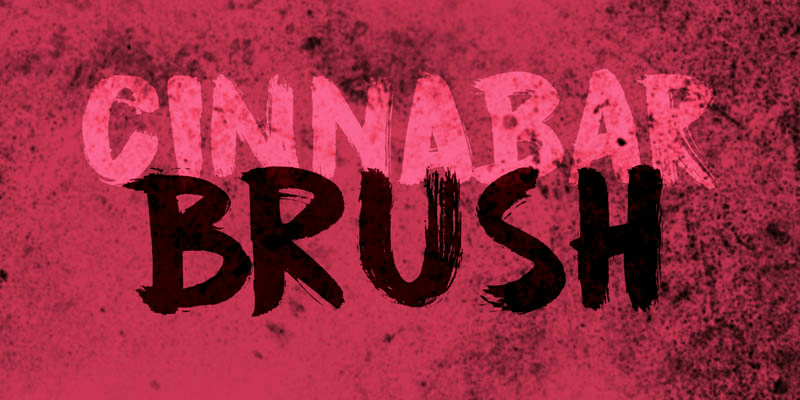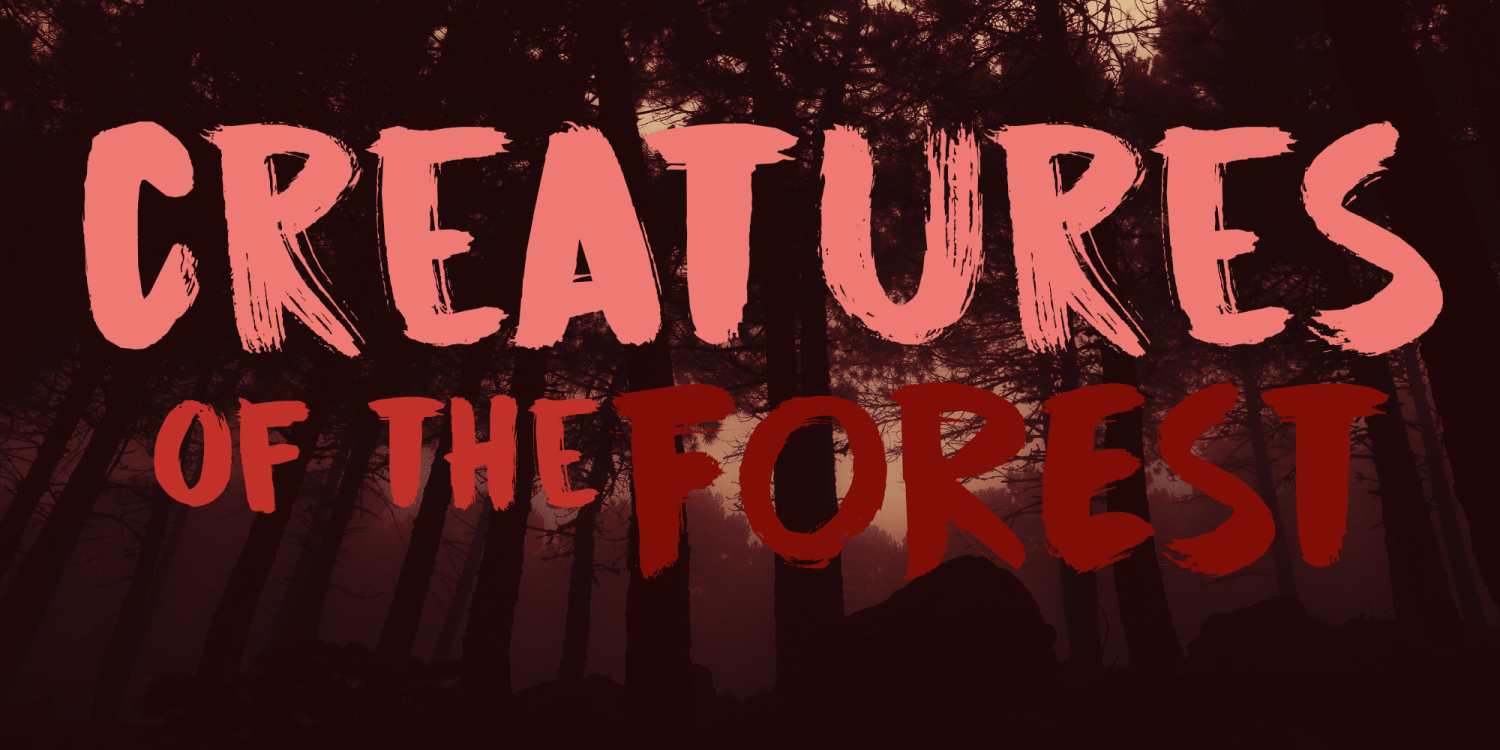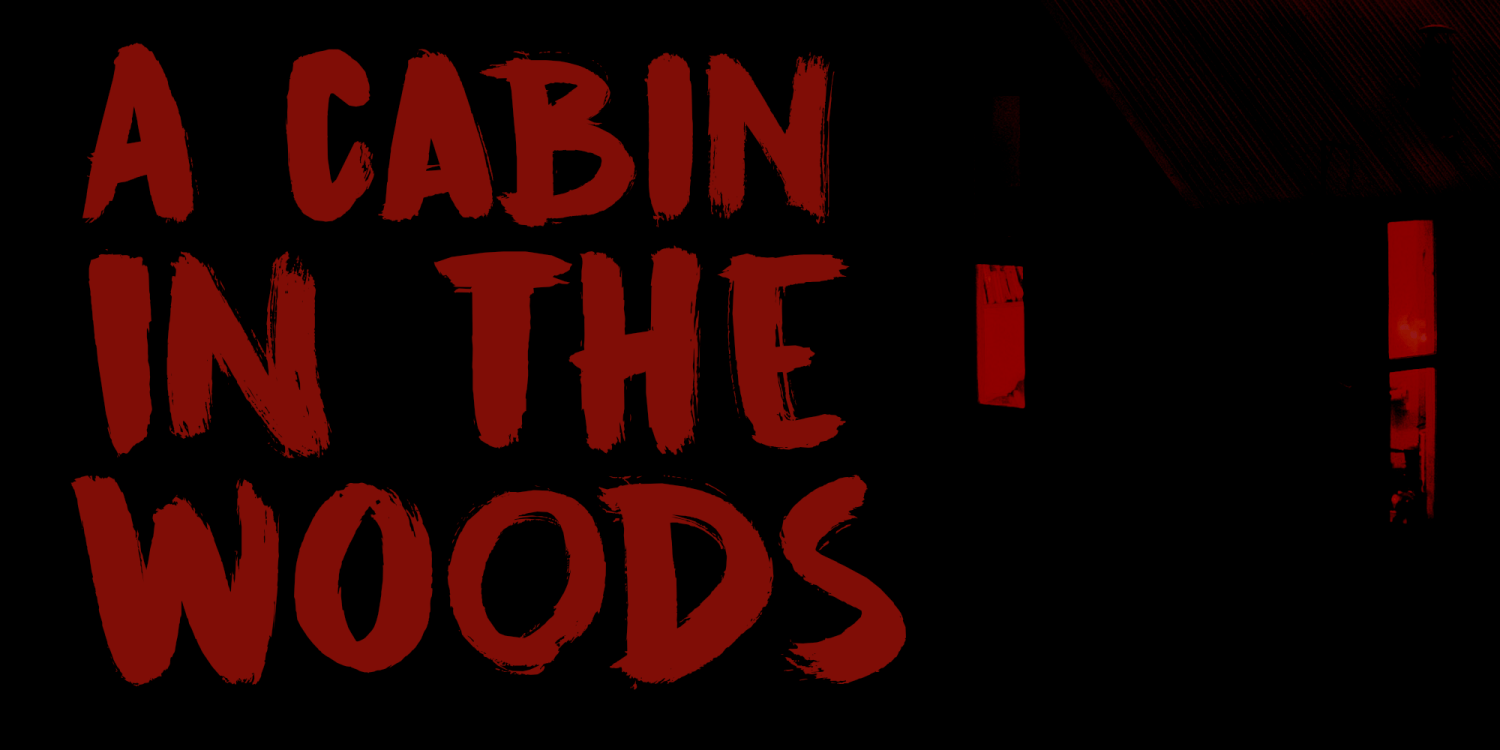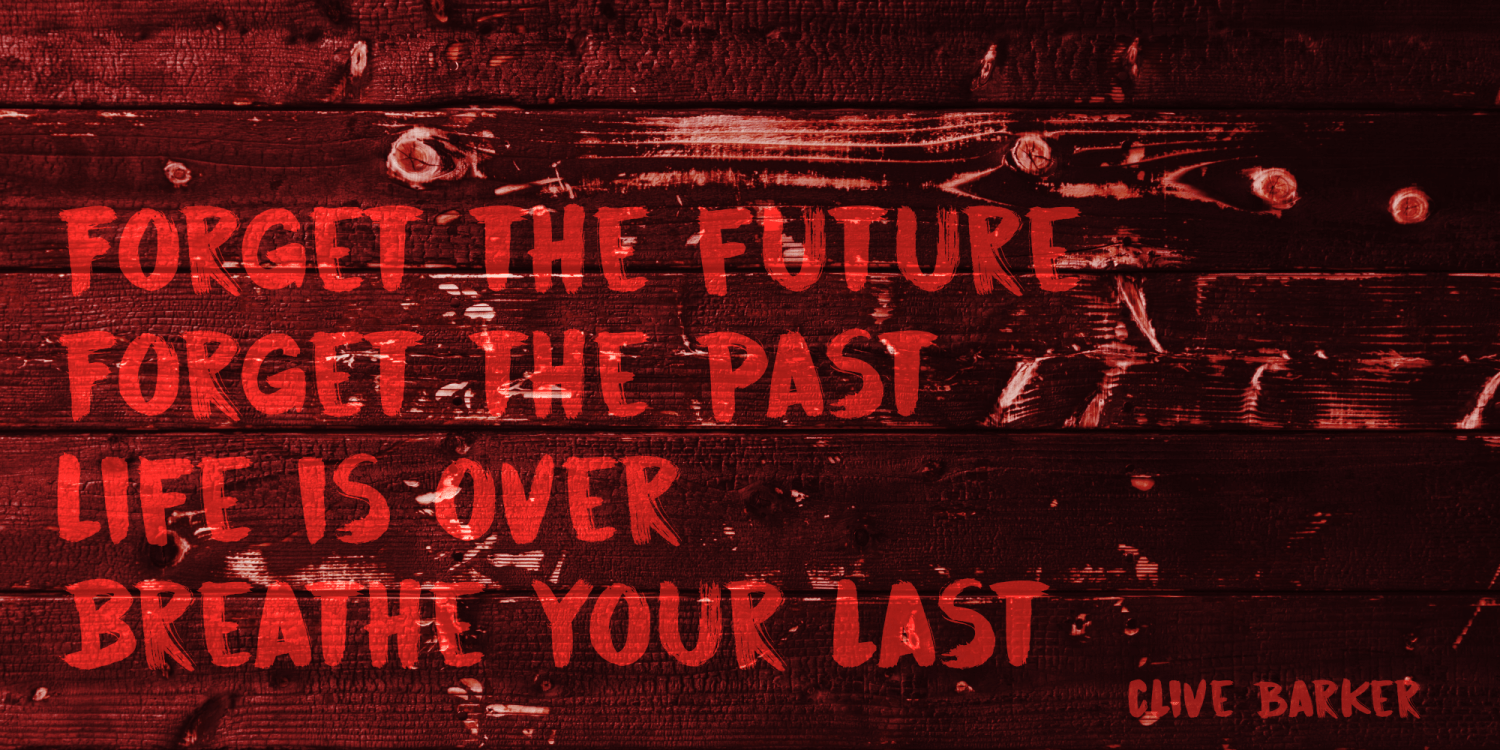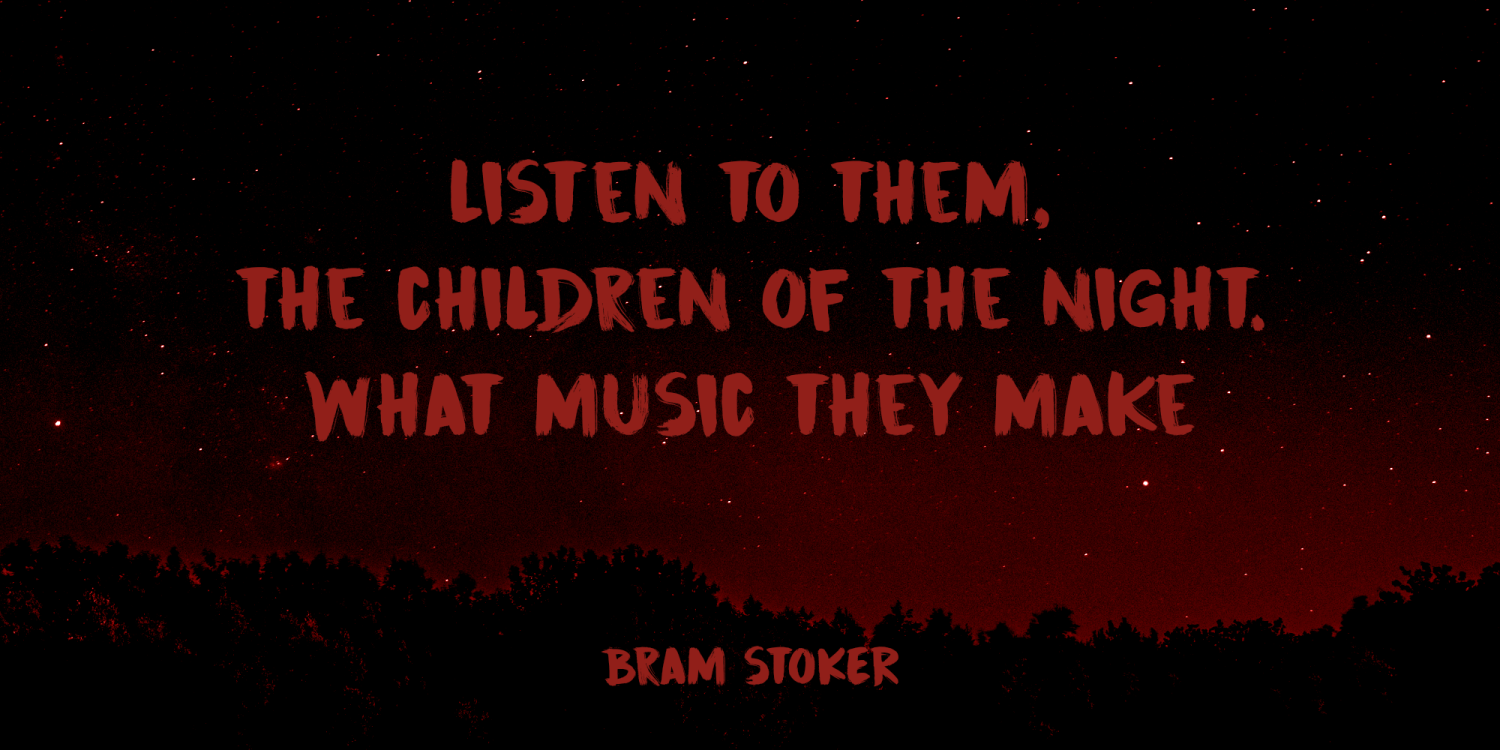
Cinnabar Brush
Buy NowCinnabar Brush is a fonts named after a mineral - mercury sulfide to be precise. I quite like the name and the color, so naming a font after it made sense. Cinnabar Brush is a very bold, very outspoken brush font. It is all caps, but upper and lower case glyphs differ and can be mixed. It is a bit on the heavy side, so I wouldn't set a text in it. Use Cinnabar Brush for posters, book covers, T-shirts and the like. Comes with a mother lode of diacritics.